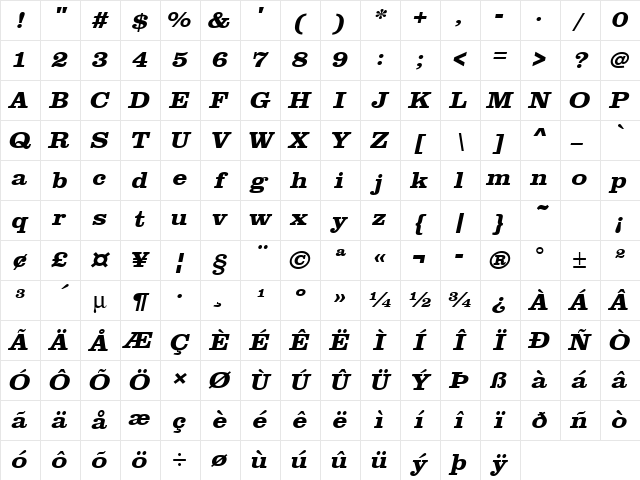
URWClarendonTExtWid Bold Oblique
Style: Bold Oblique
URWClarendonTExtWid Family
Design Context for URWClarendonTExtWid
URWClarendonTExtWid features prominent, blocky serifs that give it a confident, grounded presence - equally at home in editorial settings and bold branding work. The slanted form adds forward momentum and visual energy. Its bold stroke weight gives it real presence on the page.
Pro Tip: Use URWClarendonTExtWid for headlines and subheadings where its slab serifs can make an impression. It also holds up well in mid-size body copy thanks to its sturdy construction.